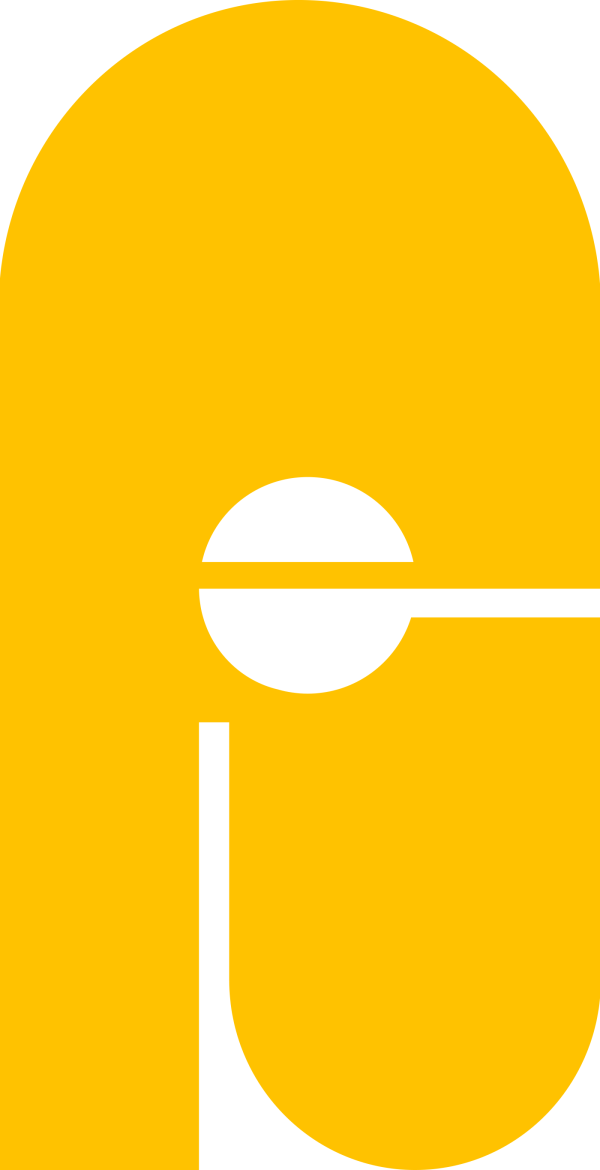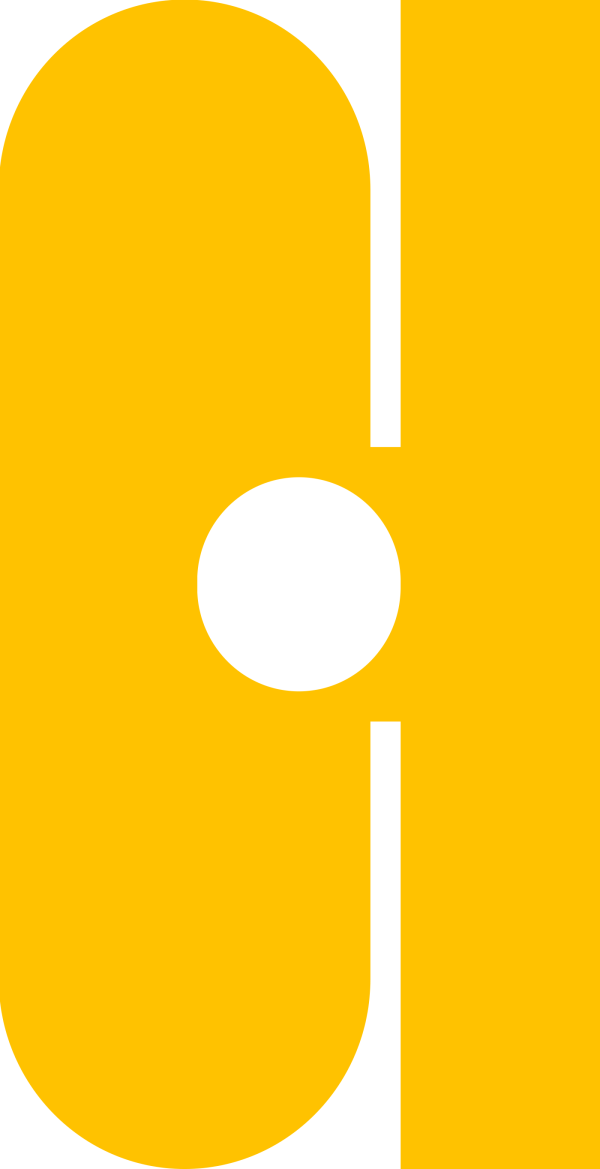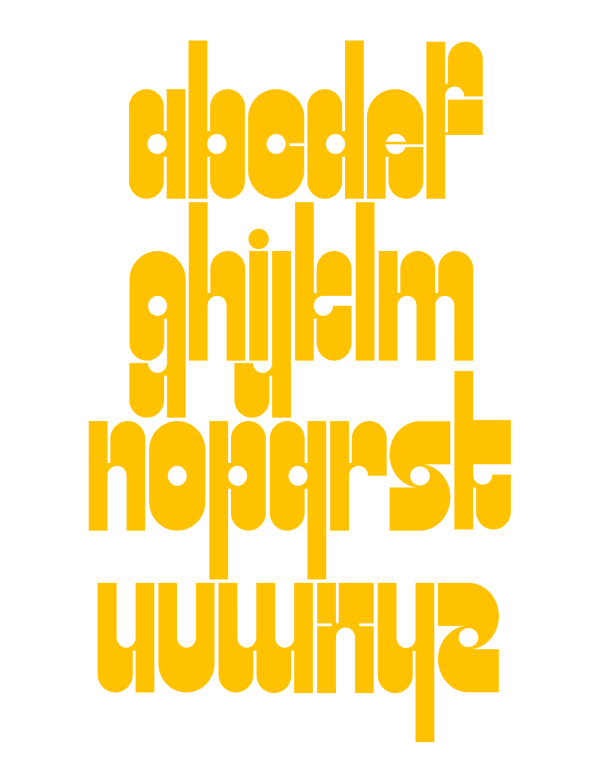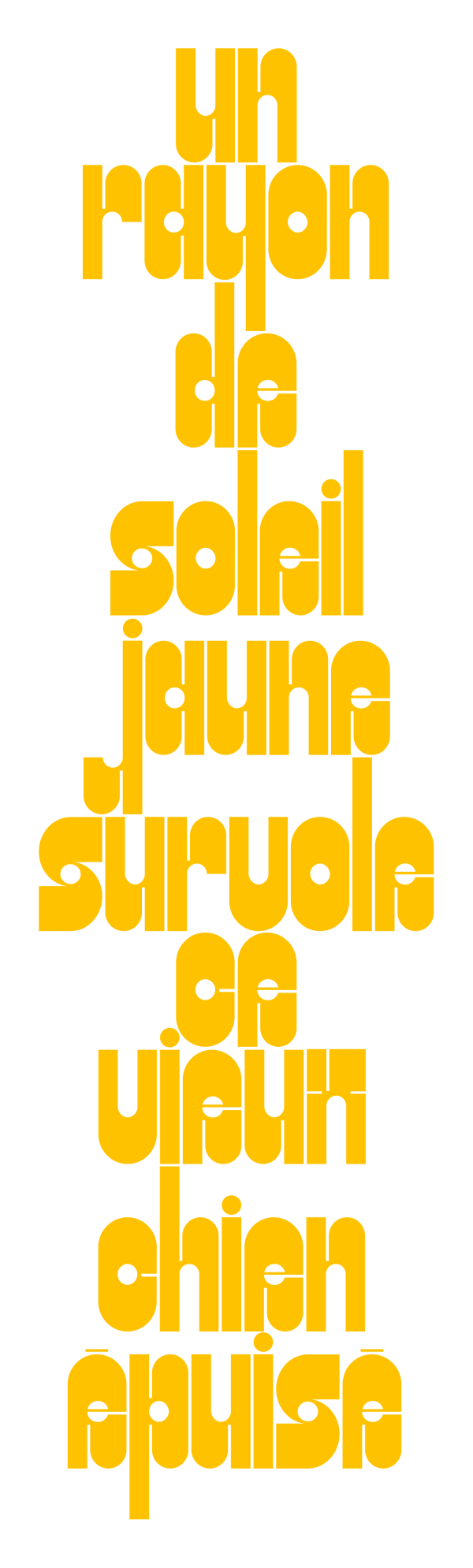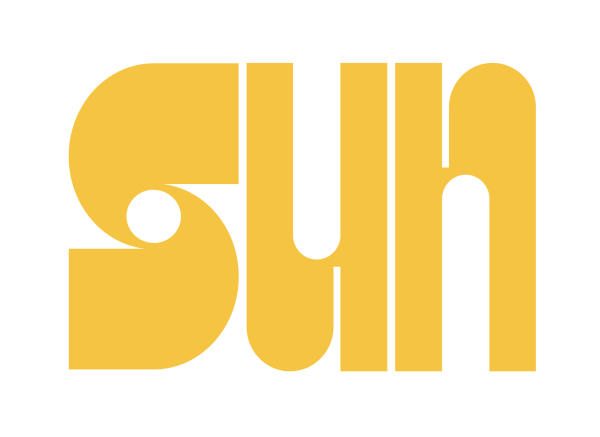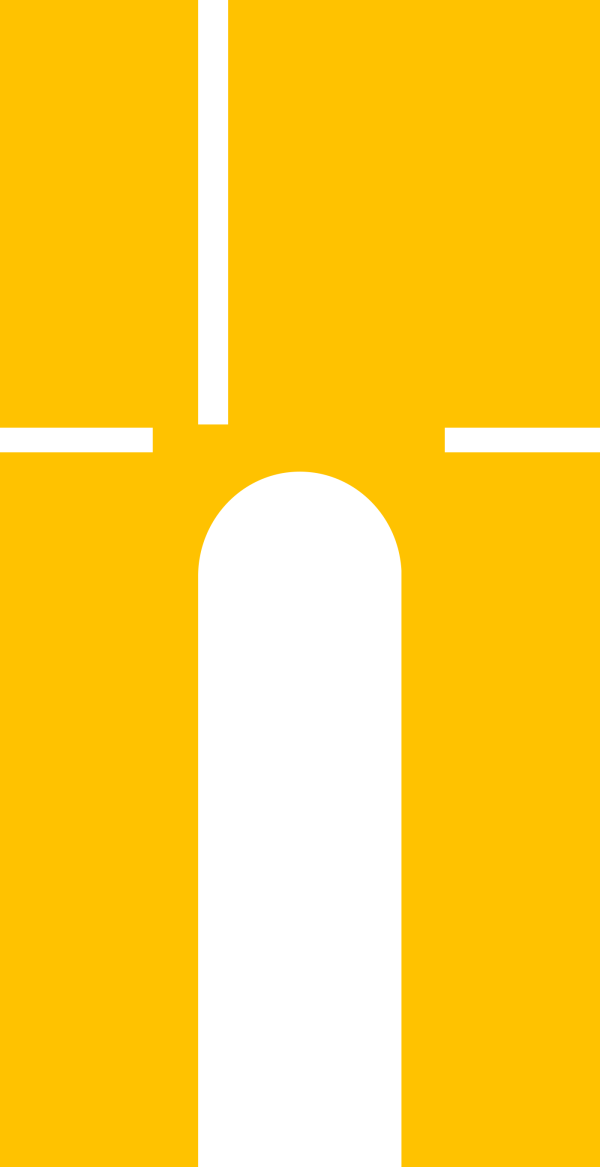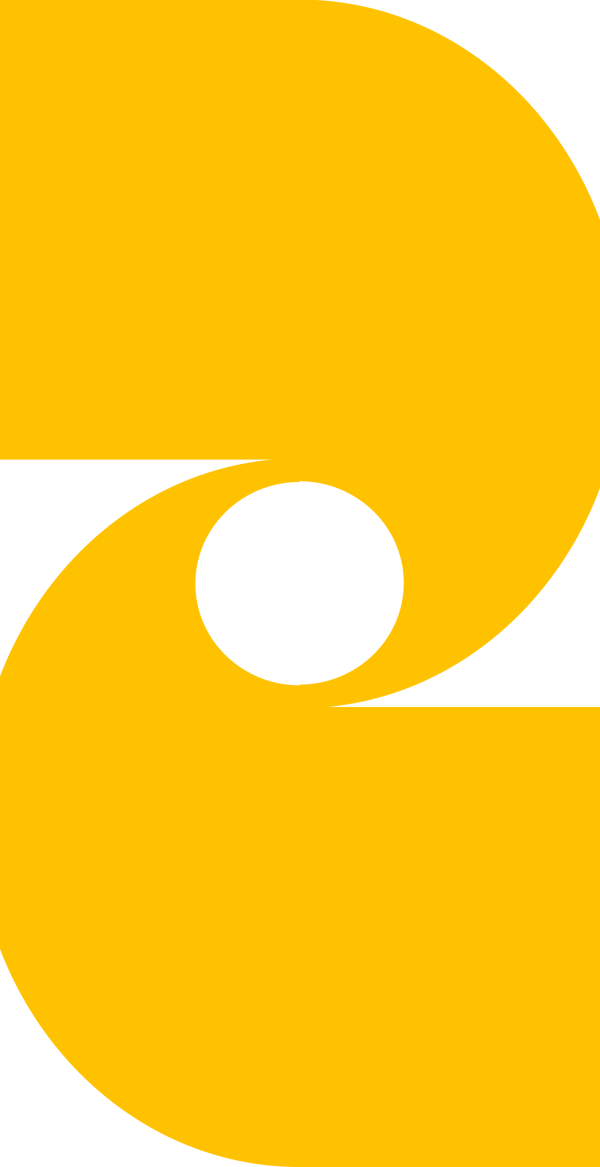
Rayon de soleil
A typeface bathed in light, pierced by the rays of a settling spring. The old dog, weary but content, draws a breath of strength from it, eyes closed, face warmed.